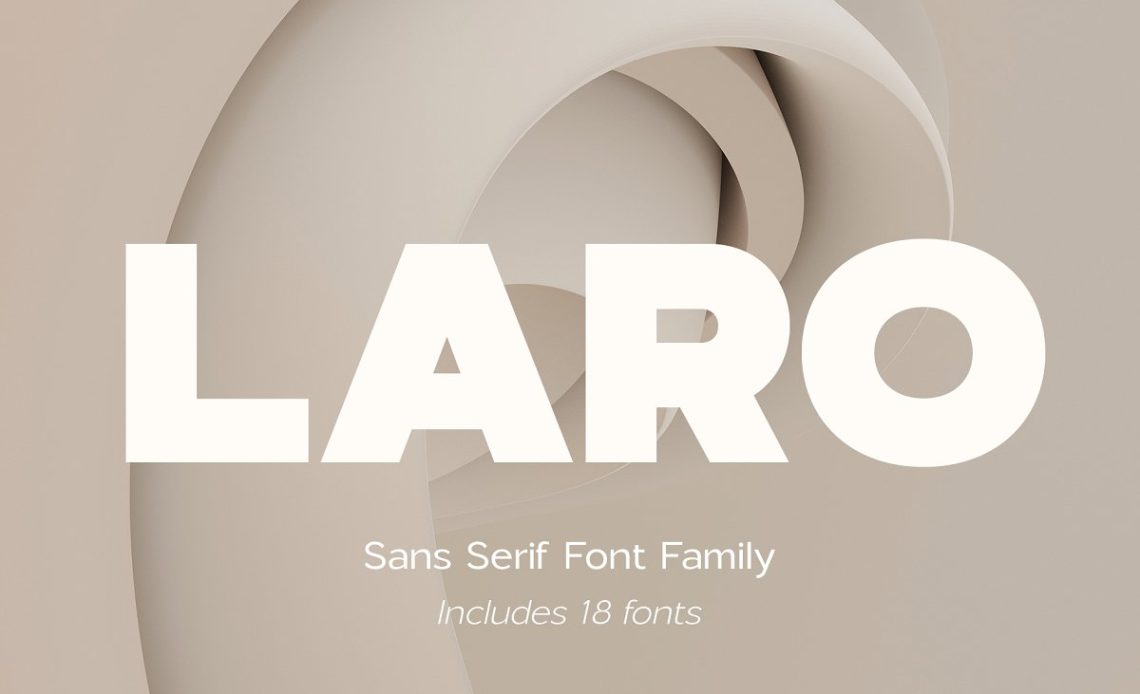
Introducing the Laro Font Family, the ultimate choice for all your design needs. Created by the talented Pasha Larin, this modern sans-serif font is a game-changer. With its sleek and stylish appearance, Laro will elevate your projects to new heights.
Featuring nine weights from thin to black and nine weights in Italic style, Laro offers incredible versatility. Whether you're designing a school website, crafting a logo, or working on a magazine cover, this font has got you covered. It's the best font for a school website, hands down.
But Laro doesn't stop there. It's a multi-purpose font that can handle any task you throw at it. From advertising to packaging, branding to book covers, cosmetics to banners, Laro is your go-to choice. It effortlessly adds a touch of modern sophistication to any project.